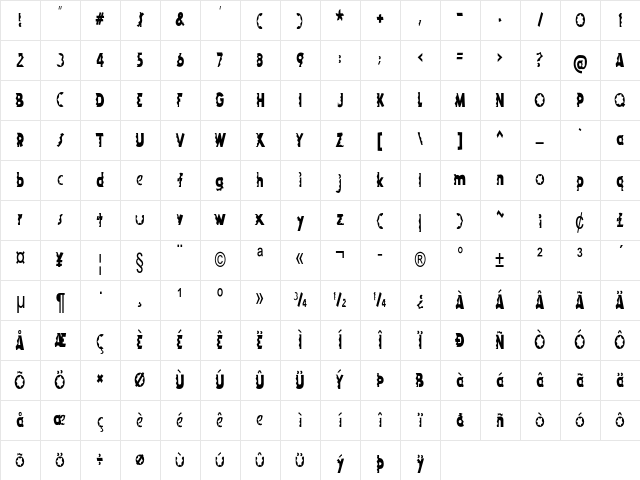
Juarez Condensed Regular
Style: Condensed Regular
Juarez Family
Juarez Condensed Regular
Design Context for Juarez
Juarez is a composed and adaptable typeface that performs quietly and consistently across a wide range of design contexts. Its narrow stance lets it pack a punch even in space-constrained designs.
Pro Tip: Use Juarez in both headline and body roles to test its range before committing to a single application.